There have been a few script fonts that have been escaping my attention lately that I'm finally able to share with you! These are being seen more and they should make for some fun, elegant and also whimsical wedding materials! Enjoy and click the links for purchasing information.
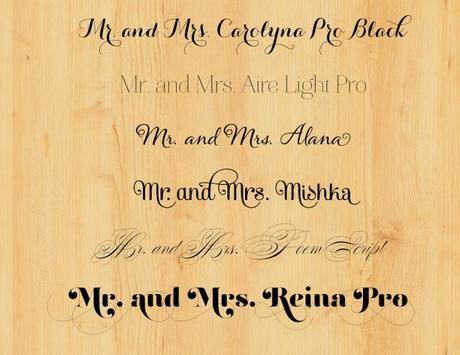
Carolyna Pro Black | Aire Light Pro | Alana | Mishka | Poem Script | Reina Pro